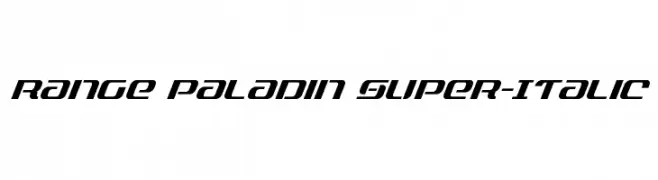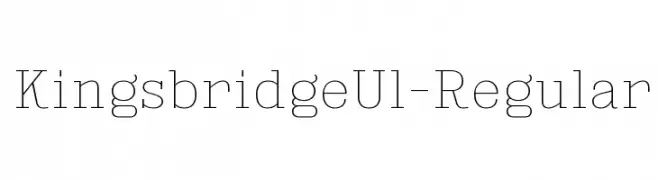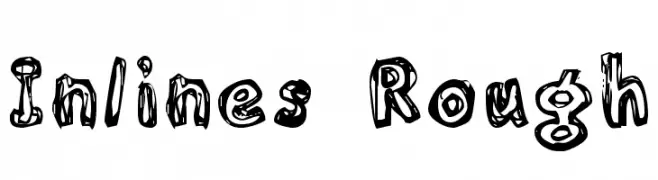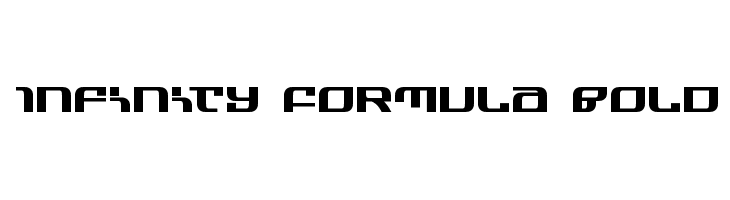
A bold, italicized font with a futuristic and dynamic style.
A bold, geometric, and condensed font with a modern, futuristic style.
A refined serif font with thin strokes and a modern, elegant appearance.
A modern, dotted font with a pixelated effect, ideal for creative projects.
A graceful script font with fluid, interconnected strokes and elegant loops.
A bold, hand-drawn font with a rough, textured style and playful character.
A bold, angular serif font with a modern yet classic appeal.
A bold, distressed serif font with a vintage, rugged appearance.